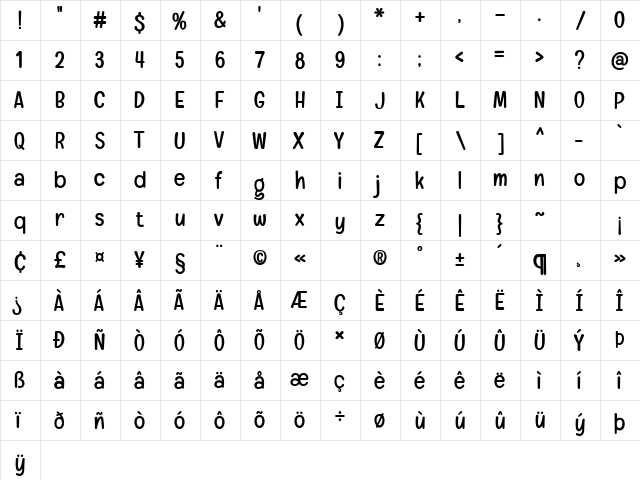
Squad Goals Regular
Design Context for Squad Goals Typeface
Squad Goals takes a measured approach to typography — its balanced proportions and neutral character make it a reliable workhorse for both digital and print work.